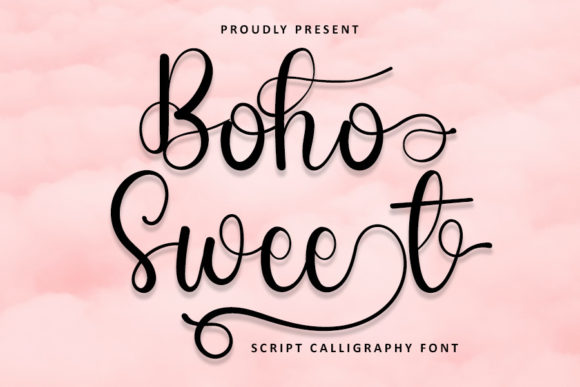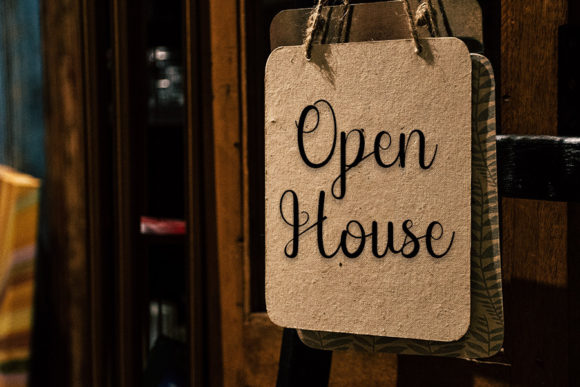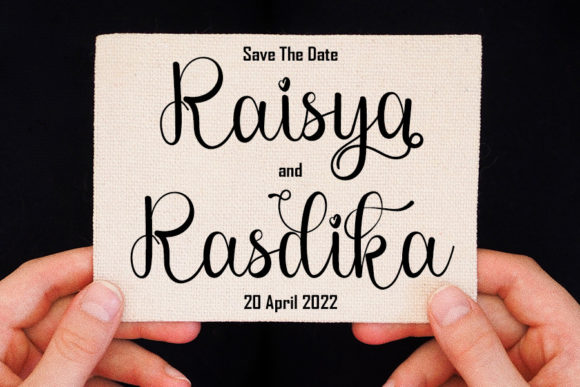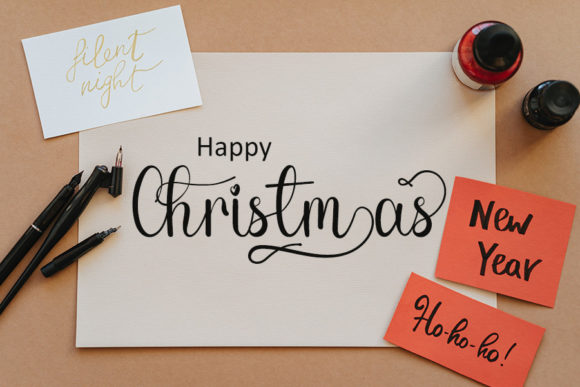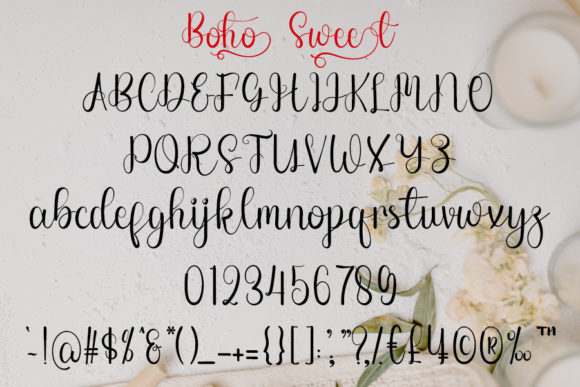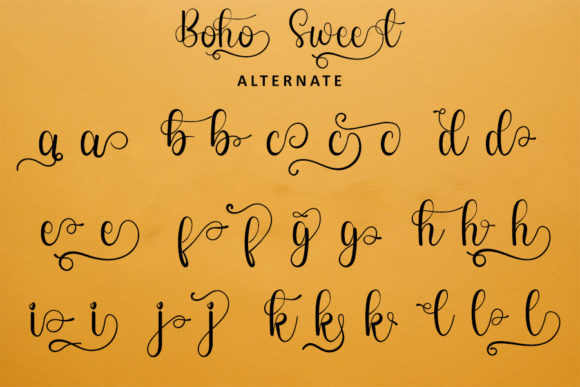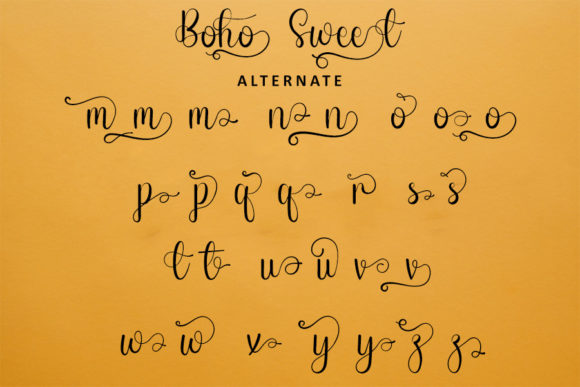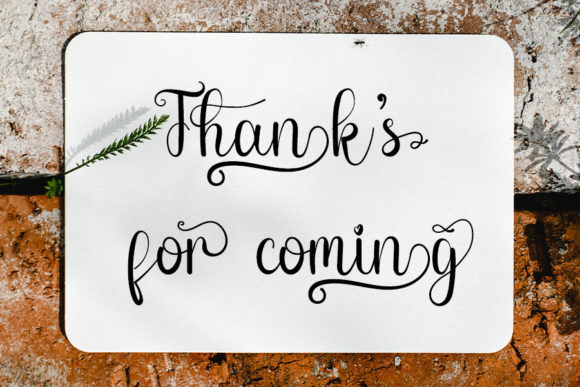
Boho Sweet Font
About Boho Sweet Font
Introducing “Boho Sweet,” a well-balanced handwritten font infused with a contemporary atmosphere and impeccable form, drawing inspiration from timeless classic calligraphy. With its versatile style, Boho Sweet shines in a wide range of contexts, making your designs stand out with elegance and charm.
Whether you’re creating wedding invitations, branding materials, quotes, or any other design project, Boho Sweet delivers exceptional results. Its balanced strokes and timeless appeal bring a touch of sophistication to your work, ensuring that it captivates viewers and leaves a lasting impression.
Unlock the full potential of Boho Sweet with its PUA encoding, allowing you to access all of the amazing glyphs and ligatures with ease. This feature gives you the freedom to customize your designs and add decorative elements as desired, enhancing the beauty and uniqueness of your creations.
Experience the beauty and versatility of Boho Sweet and watch as it elevates your designs to new heights. Whether you’re a professional designer or a passionate enthusiast, this font invites you to explore new possibilities and express yourself with confidence and style.